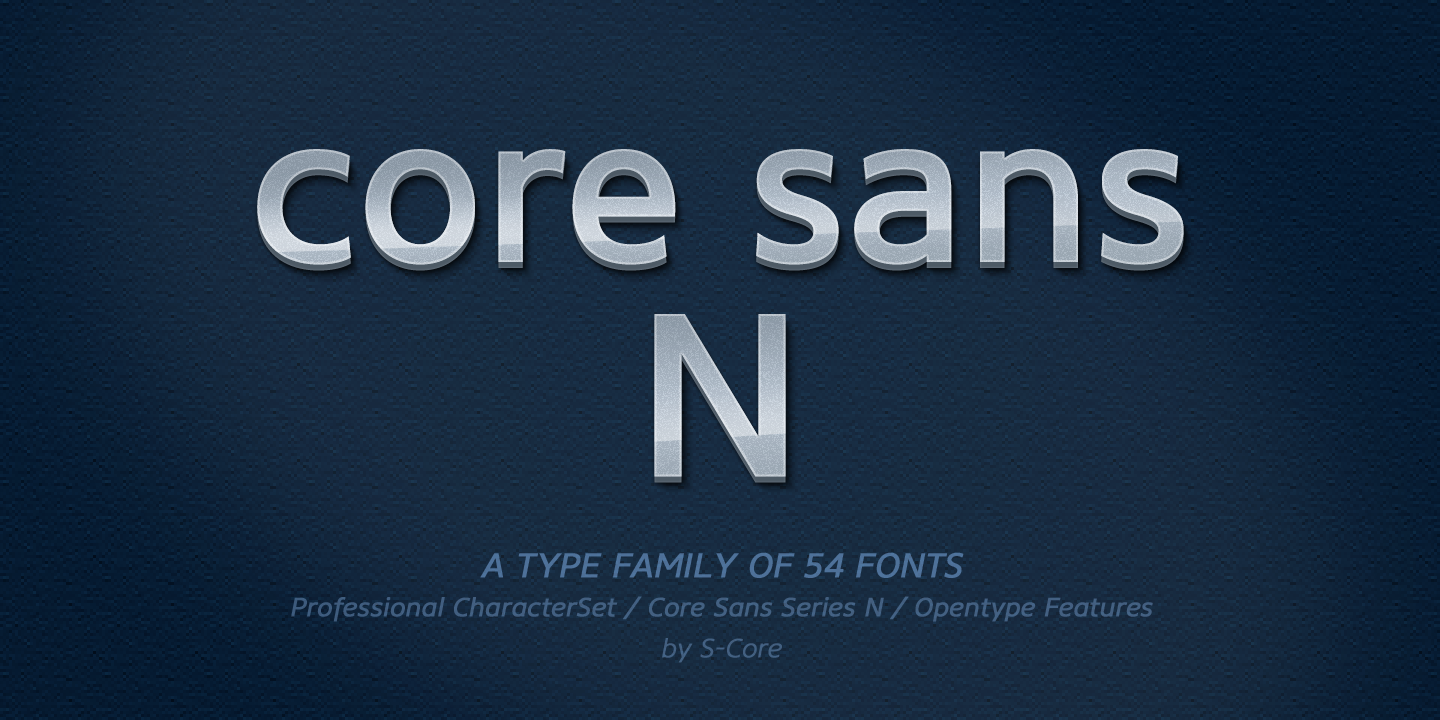
Core Sans N Font is perfect for modern corporate identities, clean technology interfaces, professional business communications, systematic documentation, contemporary web design, neutral branding projects, efficient data presentations, streamlined user interfaces, corporate annual reports, and reliable institutional materials. This versatile typeface excels in applications where functional clarity and professional neutrality need to be communicated with systematic precision and understated reliability that embodies the essence of modern business efficiency and the foundational strength required for effective corporate communication systems.
What makes Core Sans N Font exciting is its remarkable ability to provide the fundamental typographic foundation that modern businesses require through its systematically designed letterforms that offer maximum legibility and professional consistency across all applications and media formats. The font embodies the spirit of corporate reliability with its neutral construction and functionally optimized proportions that suggest the systematic approach and methodical precision that characterize well-organized business operations. Its carefully engineered character details and professional personality create an atmosphere of dependable competence that resonates with corporations, institutions, and professional organizations who value functional excellence and systematic consistency in their visual communications.
The Core Sans N Font family typically includes a comprehensive range from Thin to Black weights, each maintaining the signature neutral characteristics and systematic clarity. Some versions offer corresponding Italic styles that preserve the functional integrity while adding subtle emphasis, extended character sets with comprehensive international language support, and specialized variants optimized for different media applications. The family may also include condensed styles for space-efficient layouts and display cuts designed for maximum impact in corporate presentations requiring reliable professional communication.
Whether you're creating corporate brand systems, professional business materials, or systematic communication frameworks, Core Sans N Font Free Download delivers the perfect foundational reliability your business-focused projects deserve. Its neutral character and systematic styling make it an invaluable asset for corporations, institutions, and professional service providers working in business communication, corporate branding, and systematic information design sectors where authentic professional reliability and functional consistency are essential for establishing trust and maintaining clear communication standards across diverse business applications and professional environments.